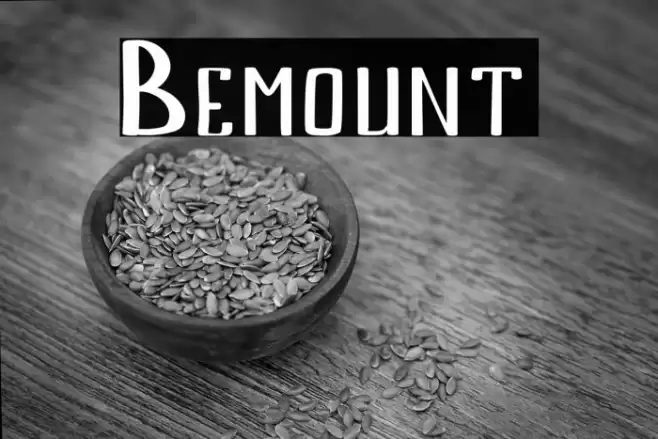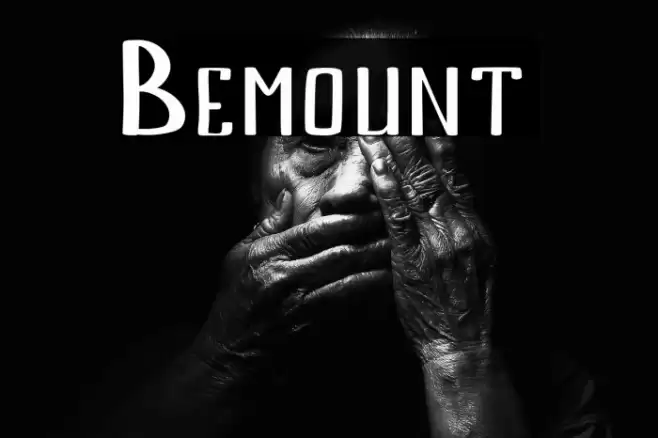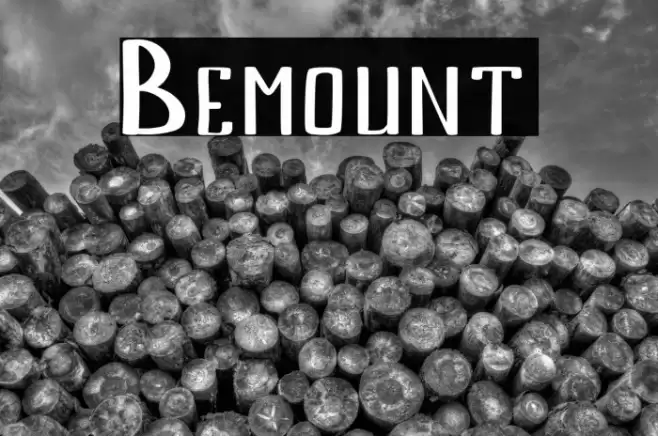
Bemount Font
Bemount Description
This font features a bold and distinctive style with a modern twist. The characters are elongated with a slight curvature, giving them a unique and artistic appearance. The uppercase letters are particularly striking, with a consistent height and width that create a harmonious look. The lowercase letters maintain the same aesthetic, ensuring readability while adding a touch of elegance. Numbers are clear and easy to distinguish, making them suitable for various applications. The special characters are well-integrated, complementing the overall design. This font's boldness and style make it ideal for creative projects that require a strong visual impact.
A bold, modern font with elongated characters and a unique artistic style from Thick fonts.
- Proposed Projects: Ideal for branding, posters, headlines, and creative design projects.